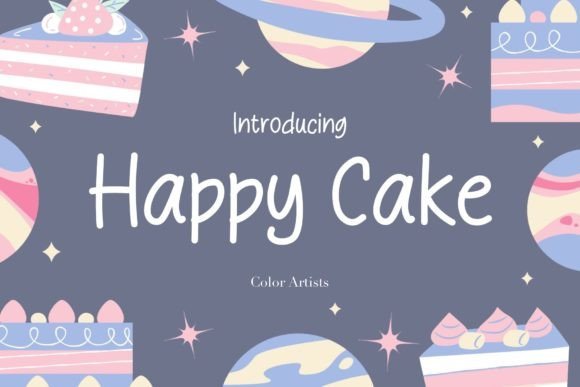
Make Your Designs a Slice of Heaven with the Happy Cake Font
Have you ever been tasked with creating a birthday invitation or a party flyer, only to feel stuck and uninspired? We’ve all been there – the blank page staring back at us, begging for some creative spark to ignite our imagination. That’s where the Happy Cake Font comes in, a delightful and playful typeface designed to add a sweet touch to your designs.
With its charming letterforms that mimic the swirls and curves of frosting on a delicious cake, the Happy Cake Font is perfect for creating eye-catching and fun designs for special occasions. Its cheerful and whimsical style will instantly bring a sense of happiness and excitement to your designs, making them stand out from the crowd.
Key Features of Happy Cake Font
- Font Family: Happy Cake Font is a unique and playful font family that includes multiple styles and weights.
- Unique Characteristics: This font features hand-drawn elements, playful flourishes, and a touch of whimsy, making it perfect for adding a touch of fun to your designs.
- Number of Glyphs: Happy Cake Font includes a wide range of glyphs, including uppercase and lowercase letters, numbers, punctuation, and special characters.
Happy Cake Font Review
First off, I think Happy Cake Font is a great choice for designers looking for a playful and whimsical feel in their designs. ✨ The font’s rounded edges and bubbly texture are perfect for creating a cheerful atmosphere, making it ideal for projects like birthday invitations, children’s books, or even social media graphics. The font’s versatility also makes it suitable for a wide range of design styles, from modern to vintage.
One of the things that I appreciate about Happy Cake Font is its legibility, even at small font sizes. ✨ This makes it perfect for use in body text or headings, without compromising on readability. Additionally, the font’s compatibility with most design software and operating systems is a major plus.
However, there are a few limitations to consider. ⚠️ Firstly, the font’s bold and italic styles may not be as seamless as I’d like, with some characters appearing slightly distorted. Additionally, the font’s limited language support may be a concern for designers working on international projects.
Overall, I think Happy Cake Font is a solid choice for designers looking for a fun and playful font. While it may have some limitations, its strengths far outweigh its weaknesses.
- Playful and whimsical design
- Rounded edges and bubbly texture
- Legible even at small font sizes
- Limited language support
- Distorted characters in bold and italic styles
Happy Cake Font is ideal for creating playful, eye-catching designs. Use it for:
- Birthday invitations and party decorations
- Food and dessert labels
- Children’s books and educational materials
For the best results, pair Happy Cake Font with bright colors and bold graphics to create a fun and engaging design.